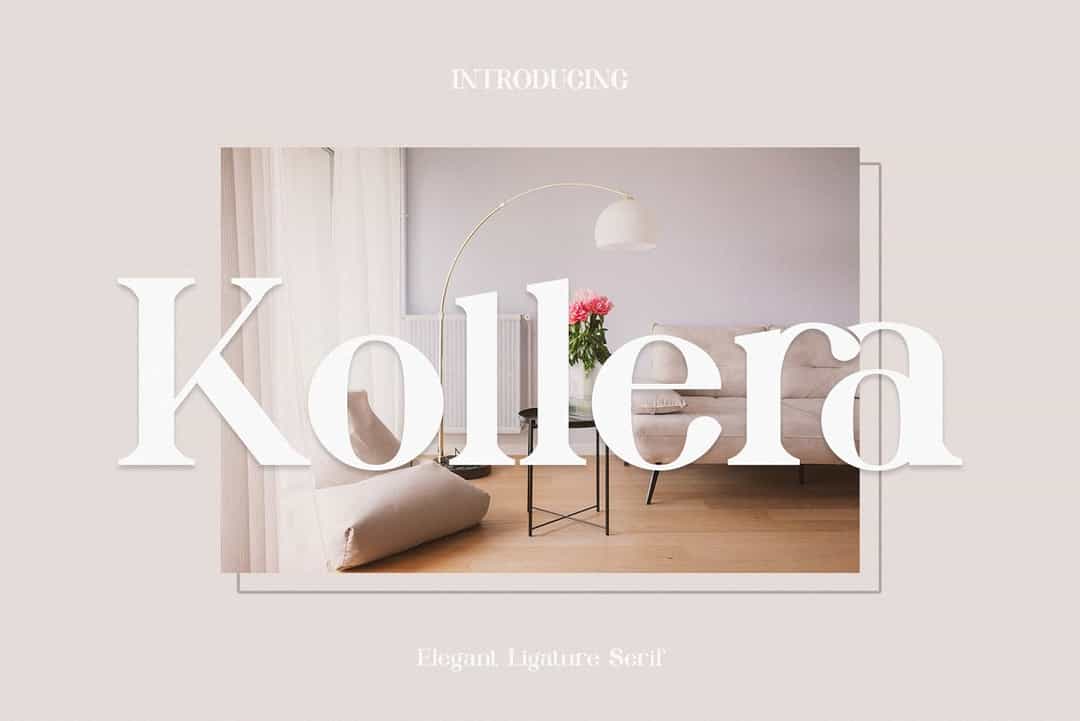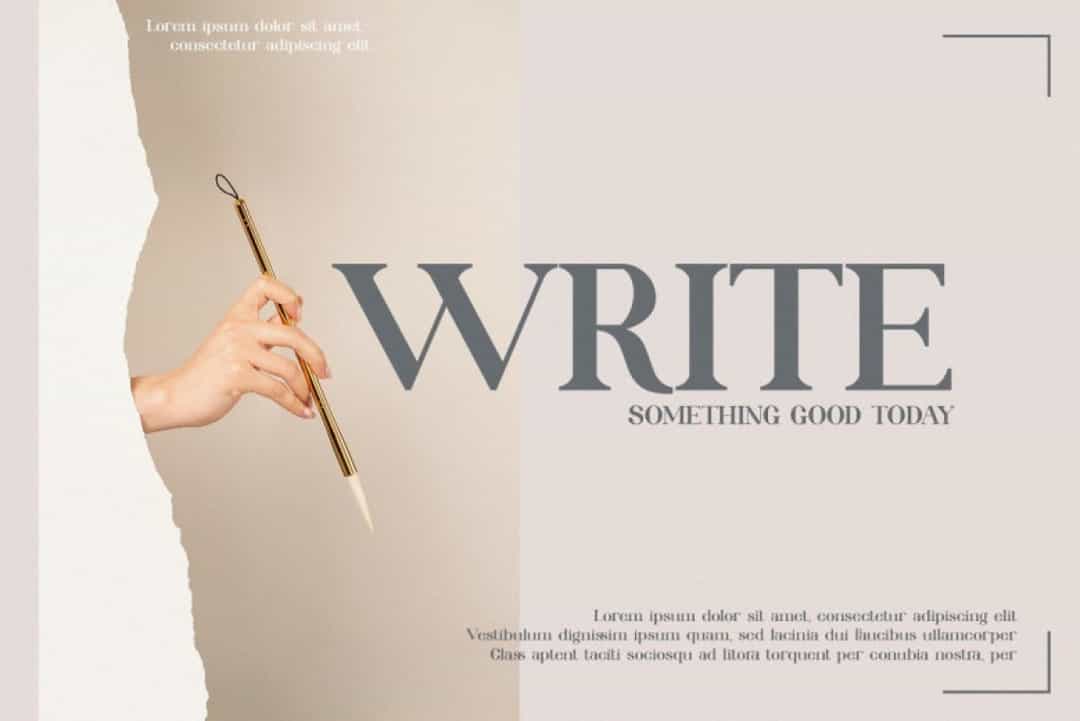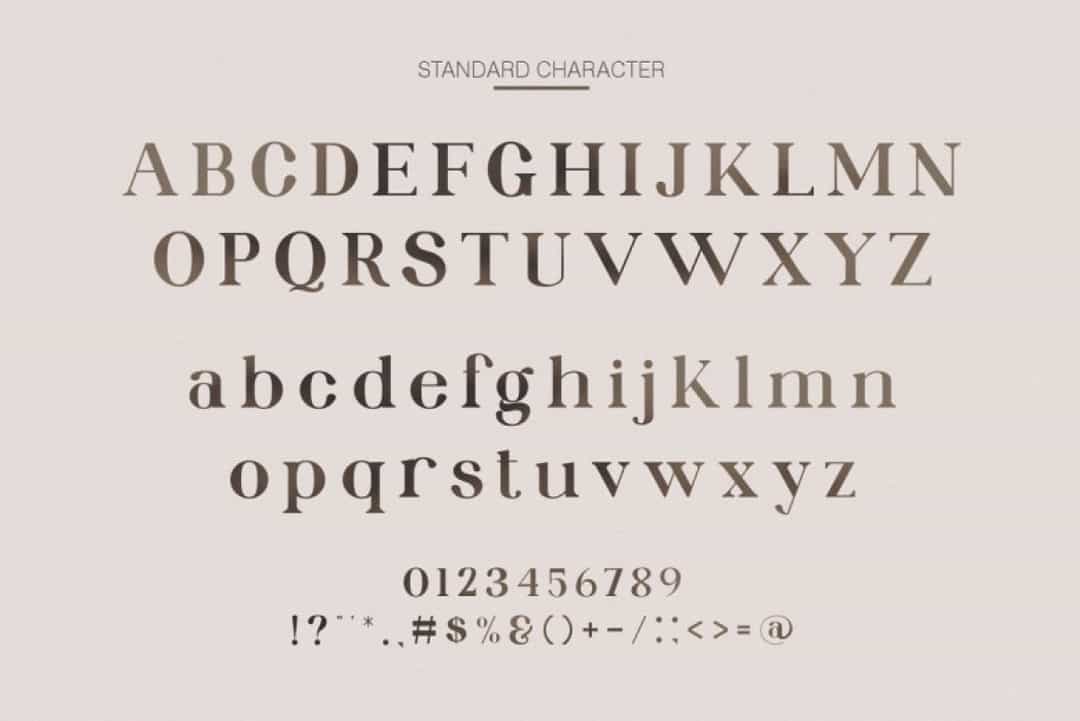
Kollera is an exquisite serif typeface. Modern yet nostalgic, this font can be used in magazines, logos and social media campaigns with equal effectiveness. Ready for use on any of your projects! This font was specifically created to meet the needs of those seeking sophisticated yet classy contemporary designs in their projects!